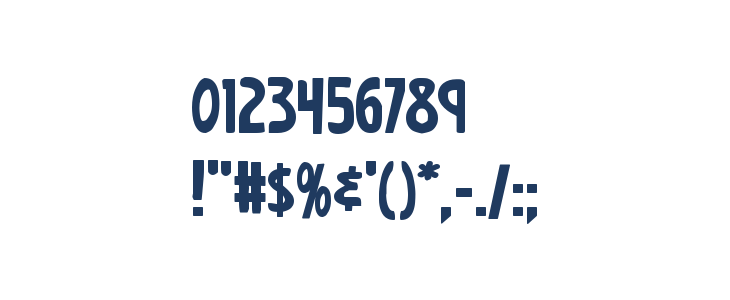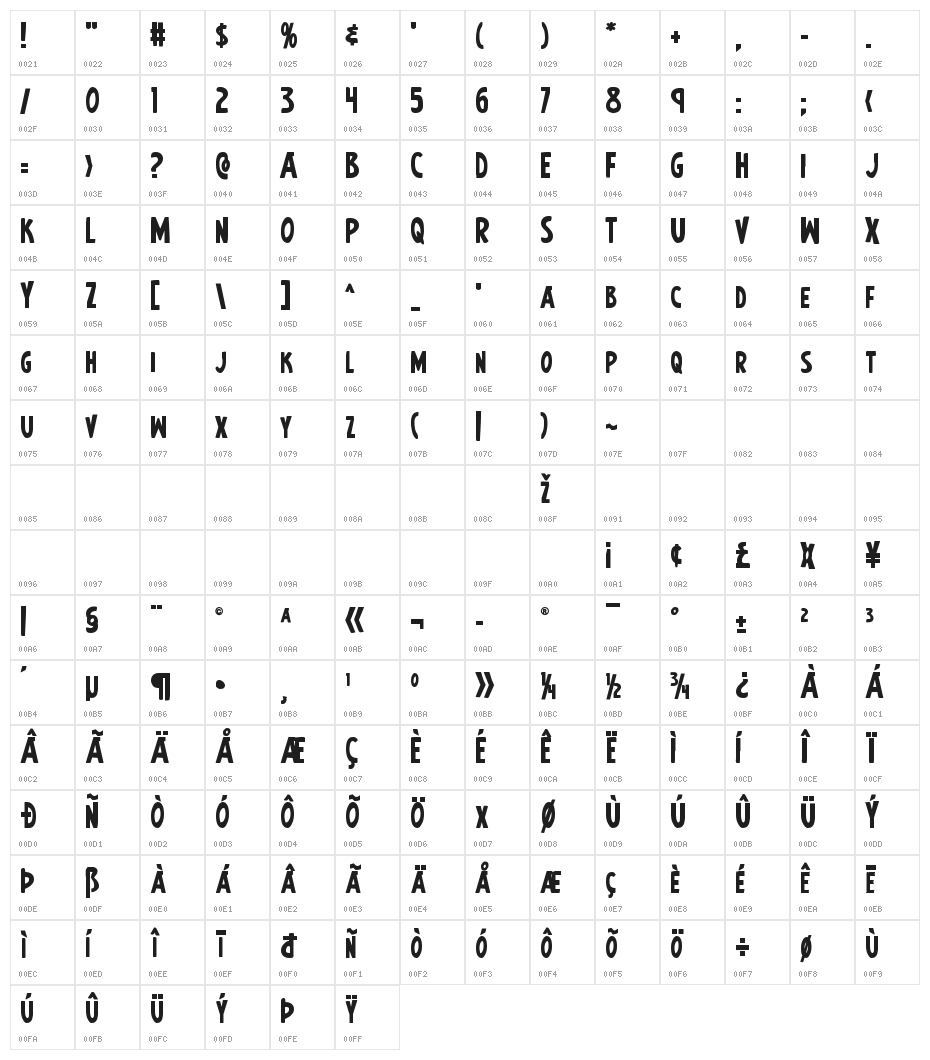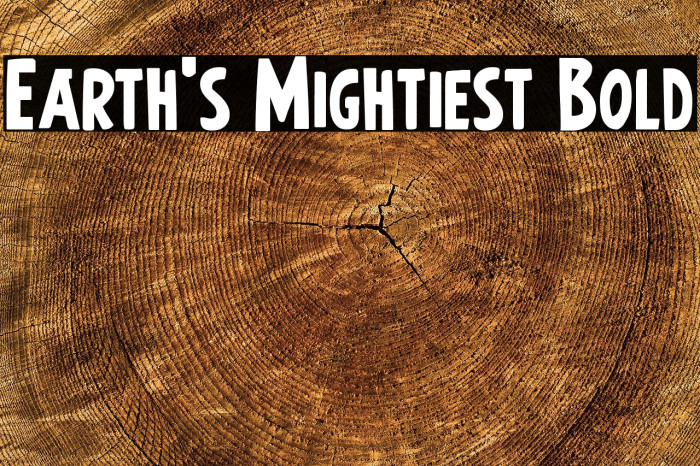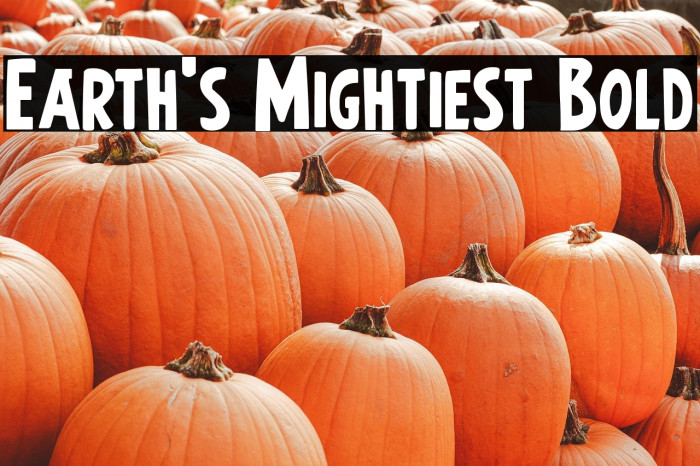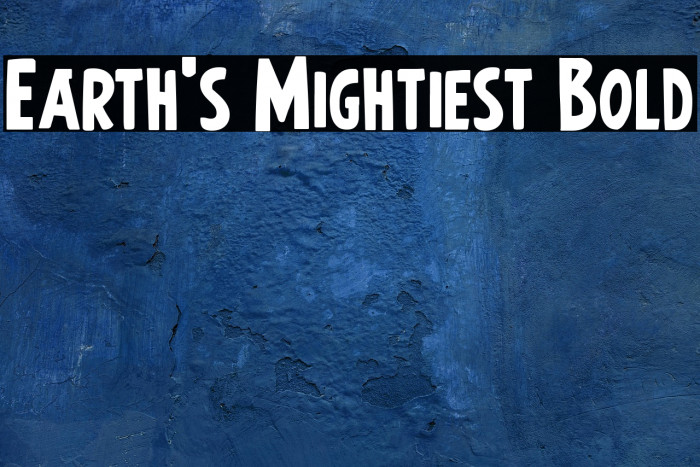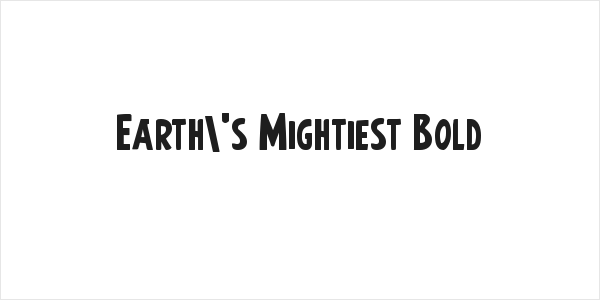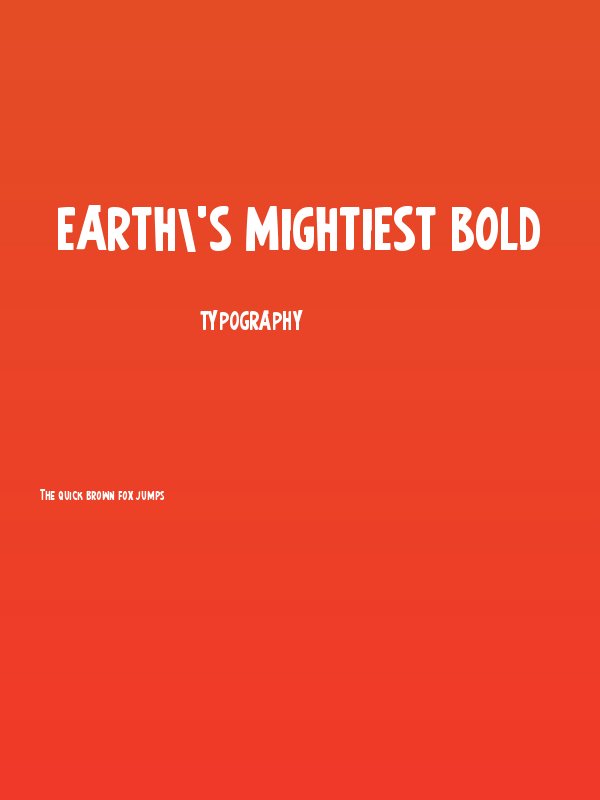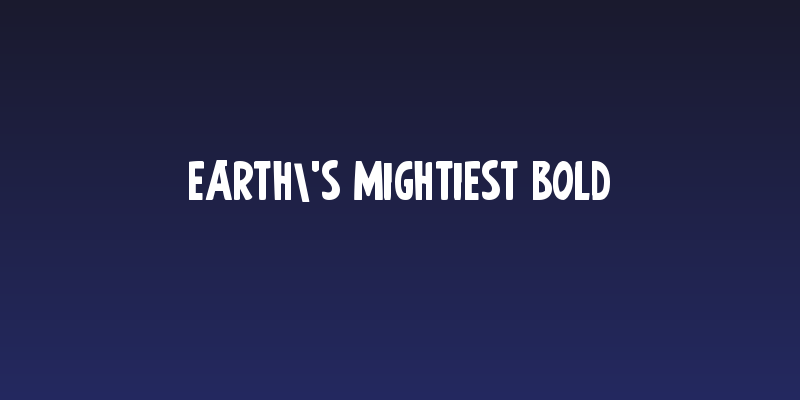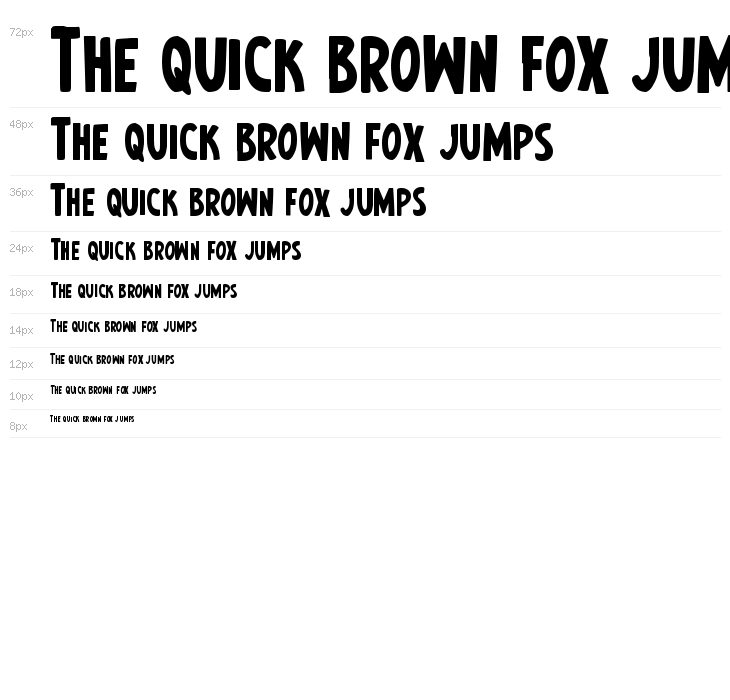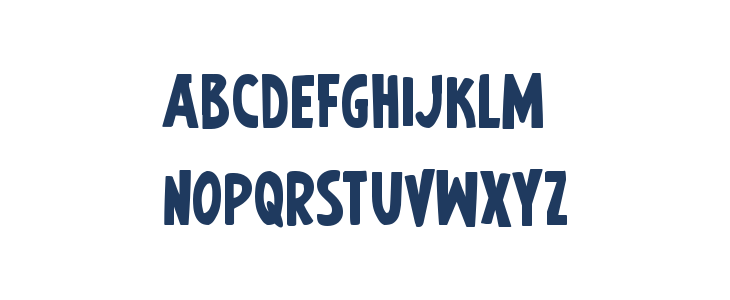
Earth's Mightiest Bold Font
This bold and dynamic font features thick, strong strokes with a slightly condensed appearance. The characters are designed with a playful and energetic style, making them stand out with a sense of movement and flair. The uppercase letters are bold and commanding, while the lowercase letters maintain a consistent weight, providing a cohesive look. The numerals are equally bold, ensuring readability and impact. Special characters are crafted with the same boldness, adding versatility to the font. The overall design is modern and eye-catching, suitable for projects that require a strong visual presence.